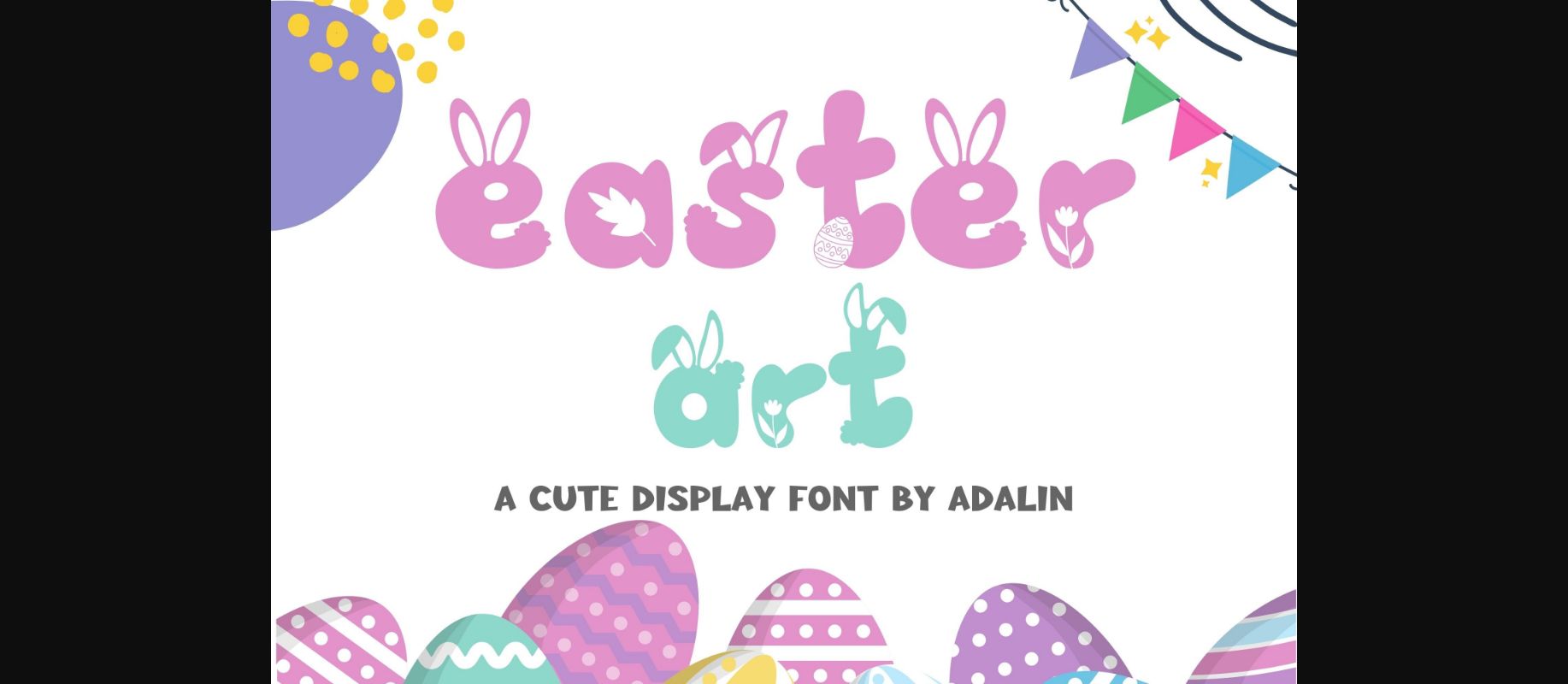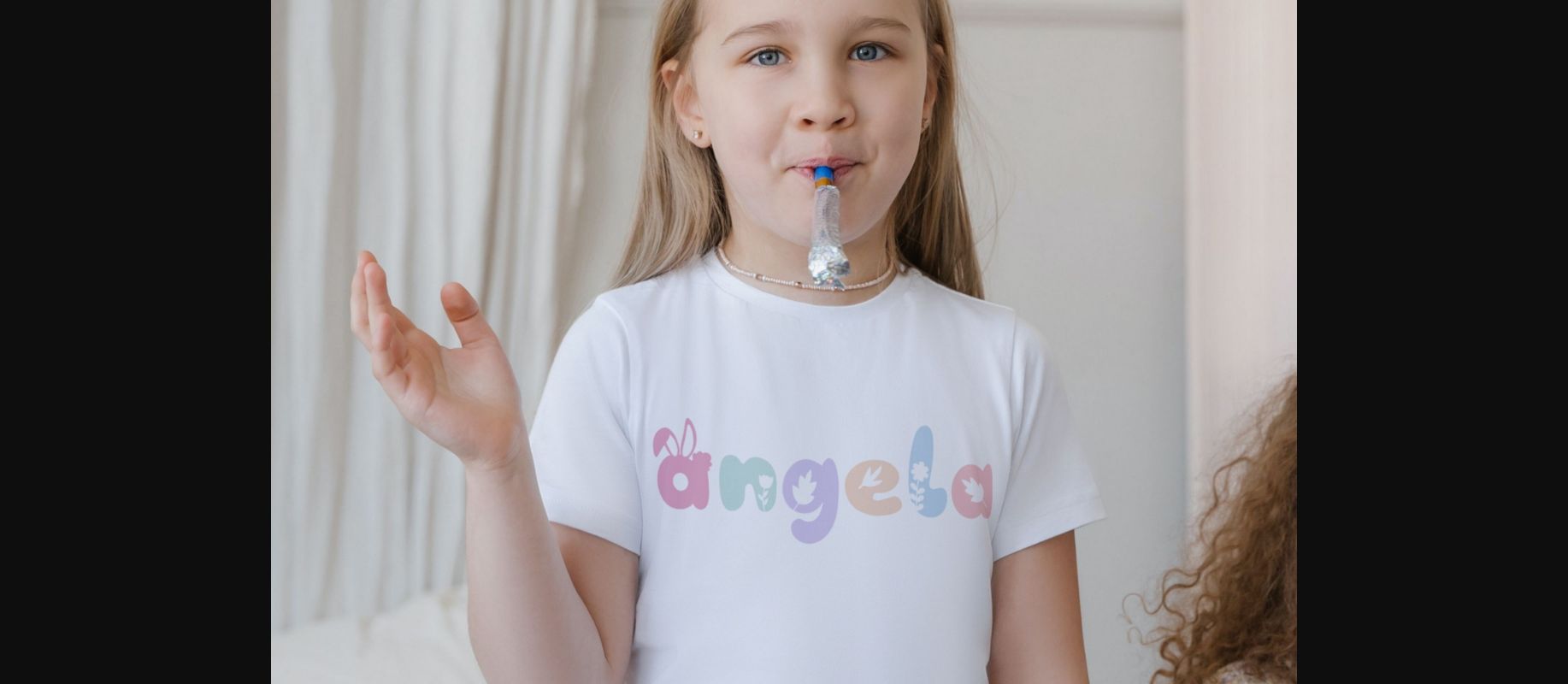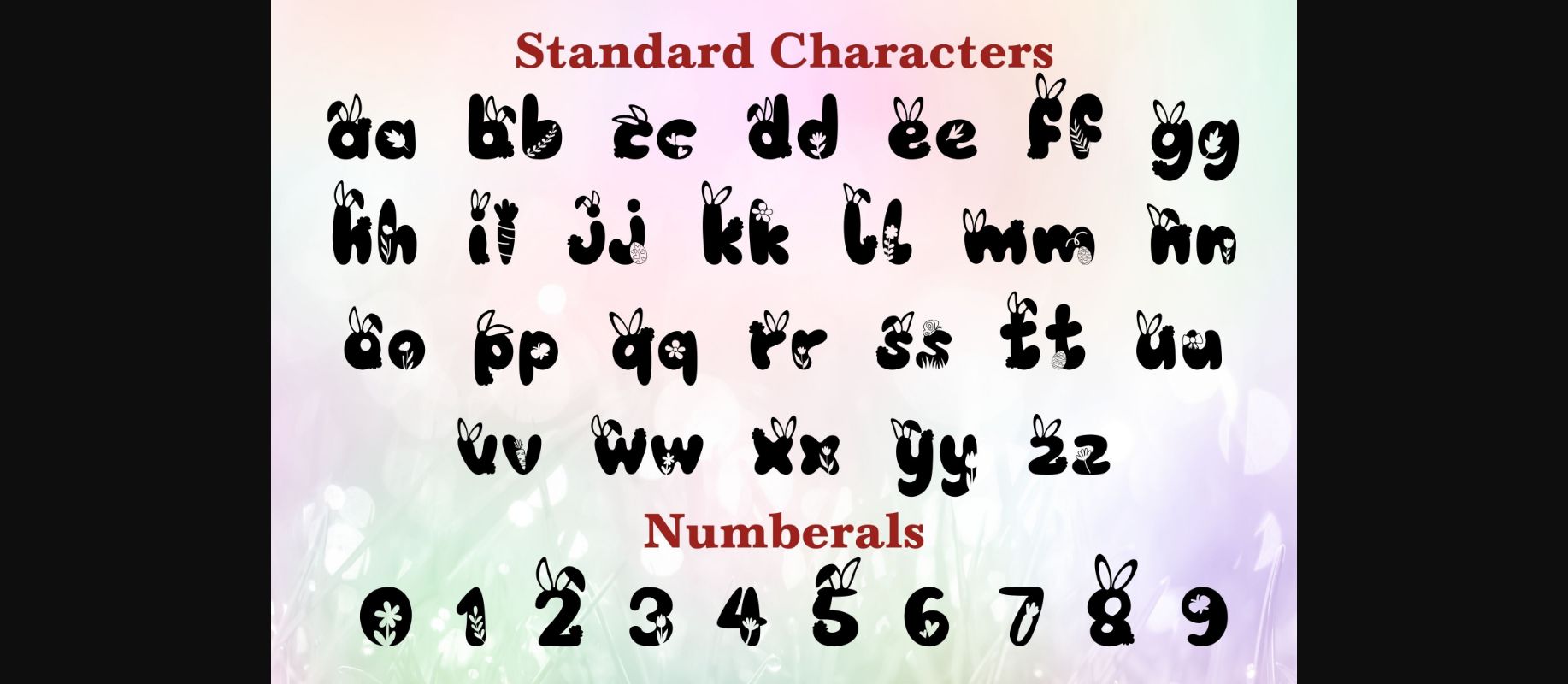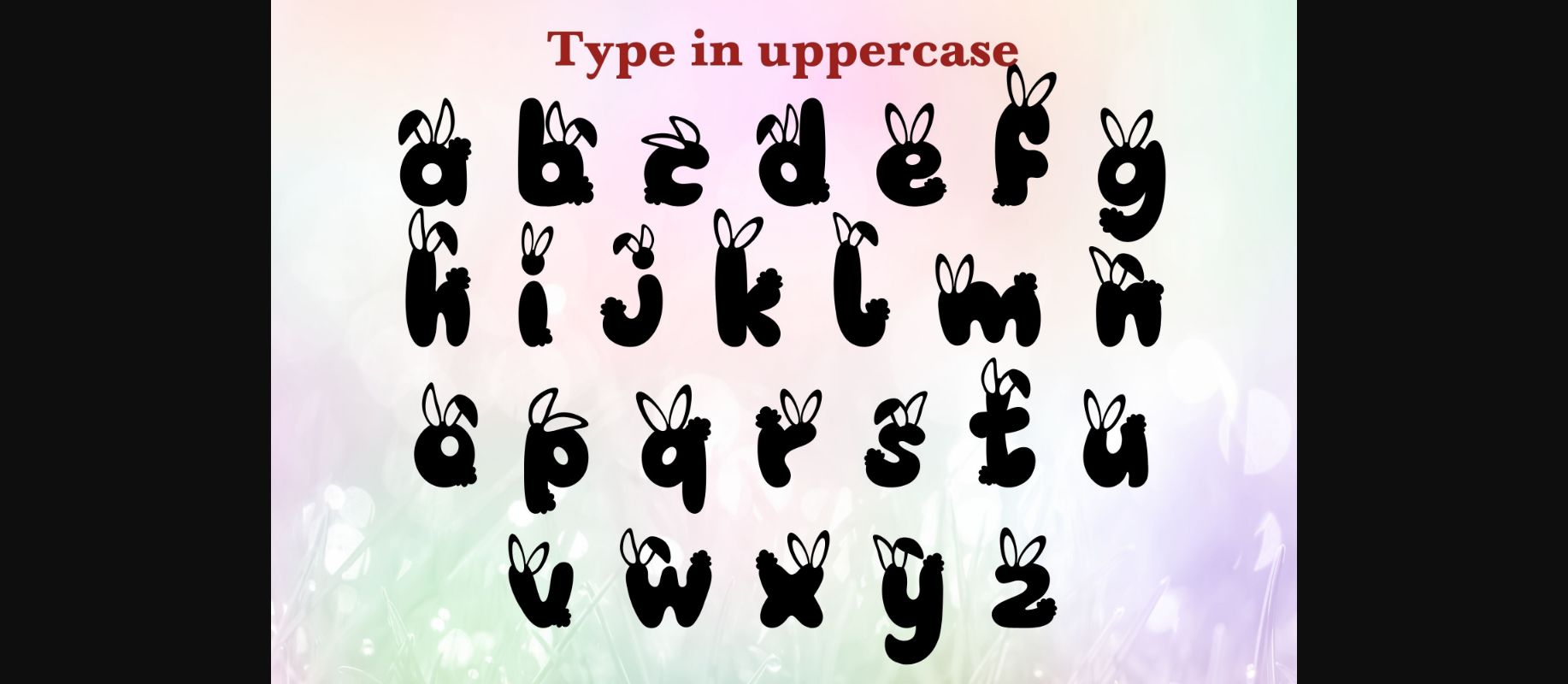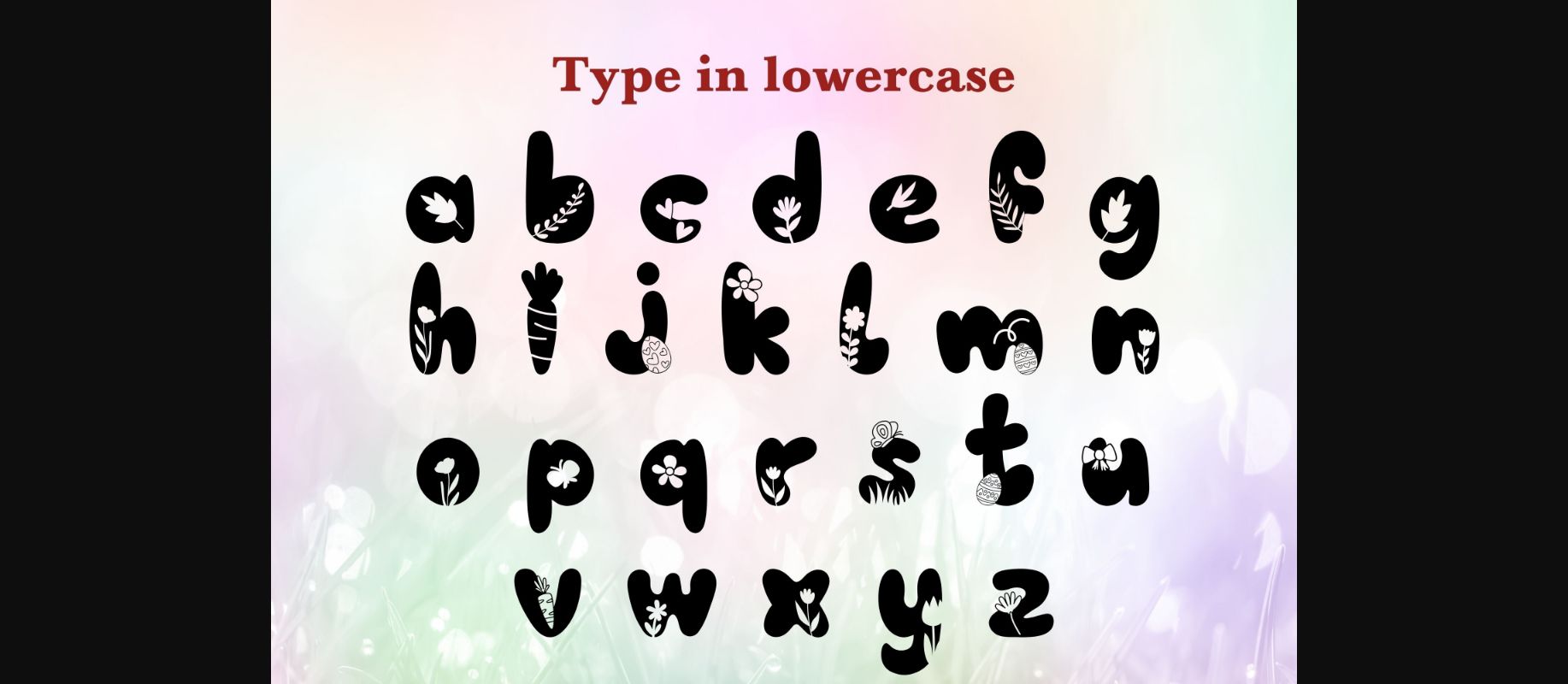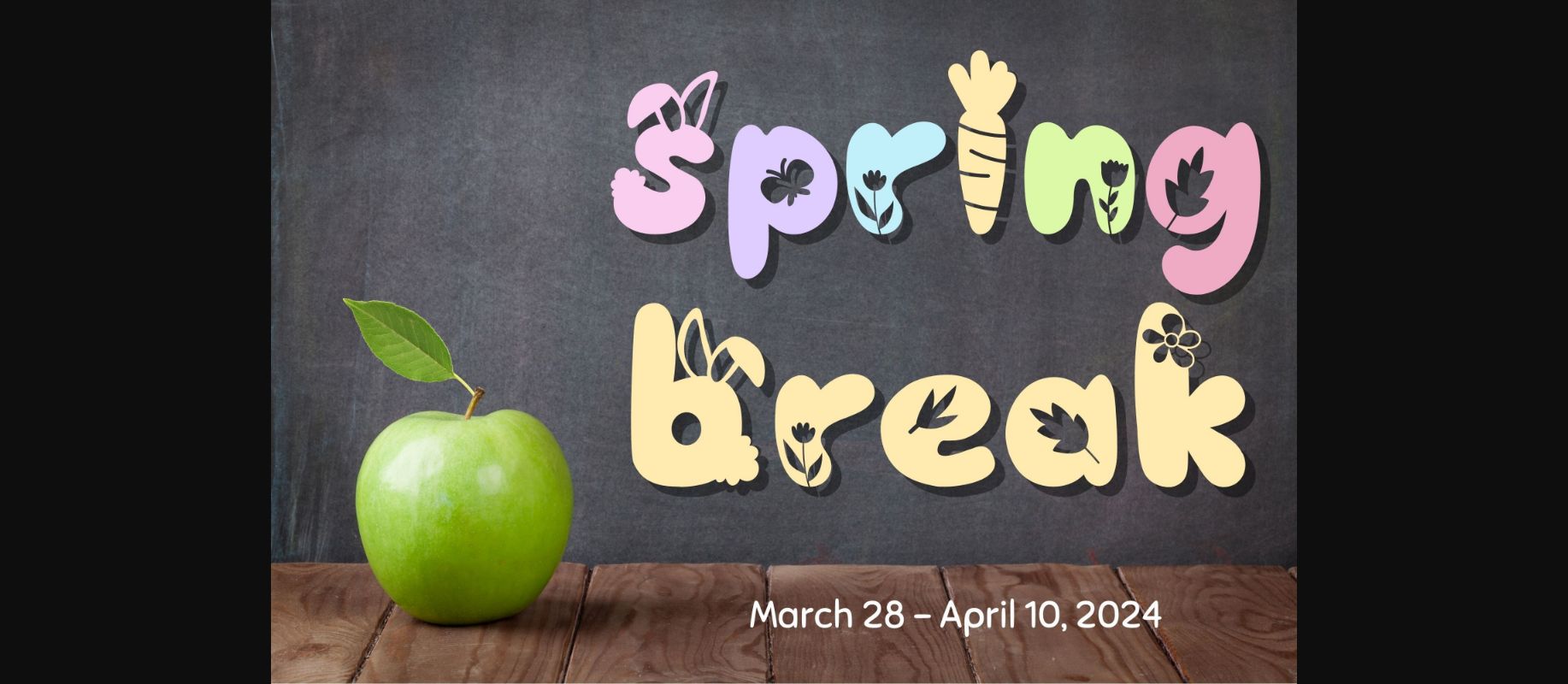
About Easter Art Font
Easter Art is a cute decorative font ideal for crafting, and perfect for designs that need a playful, cheery accent. Easter Art is suitable for book covers, posters, packaging, merchandise, logotypes, and many more!